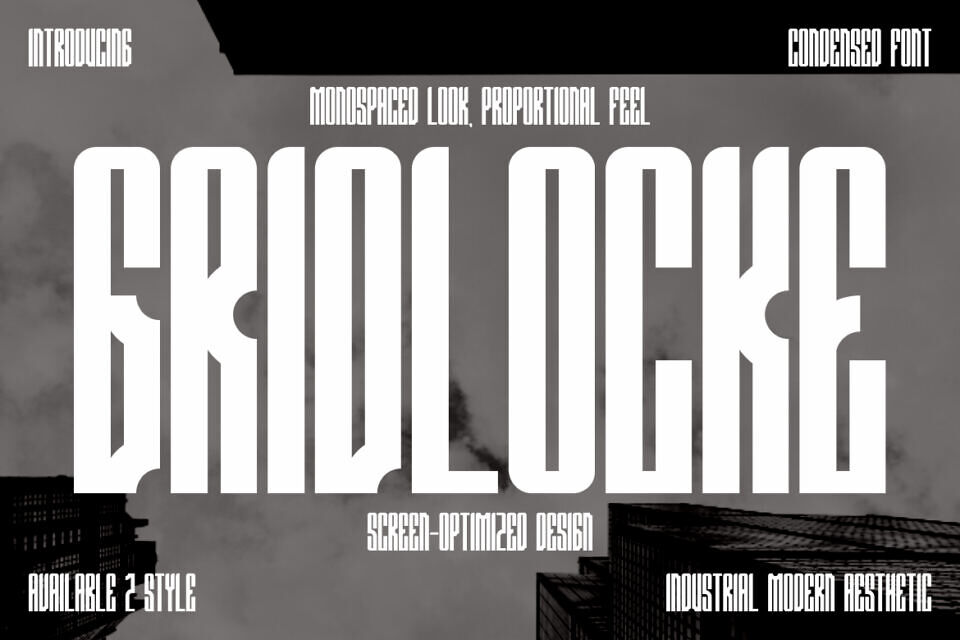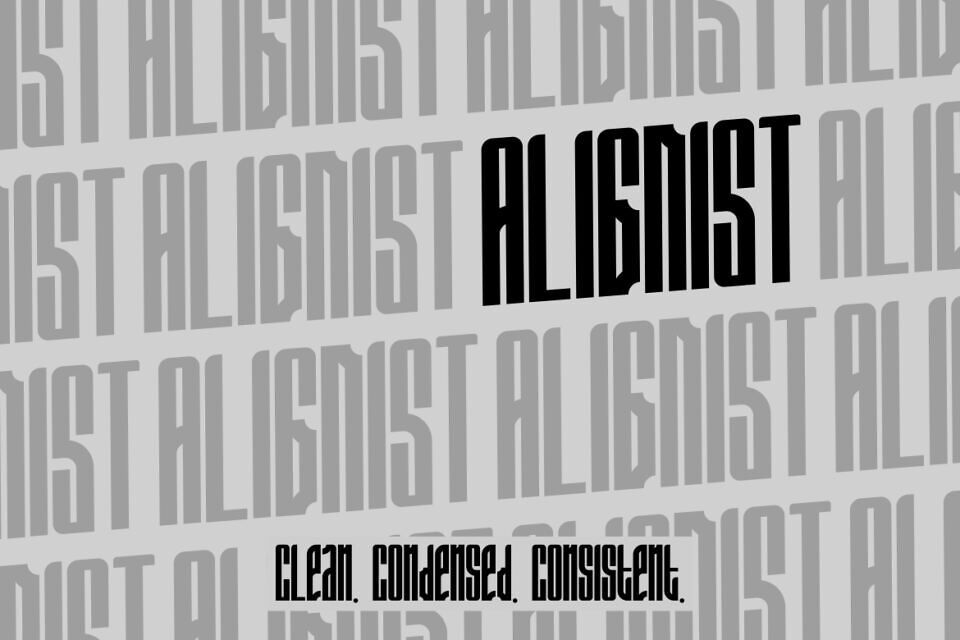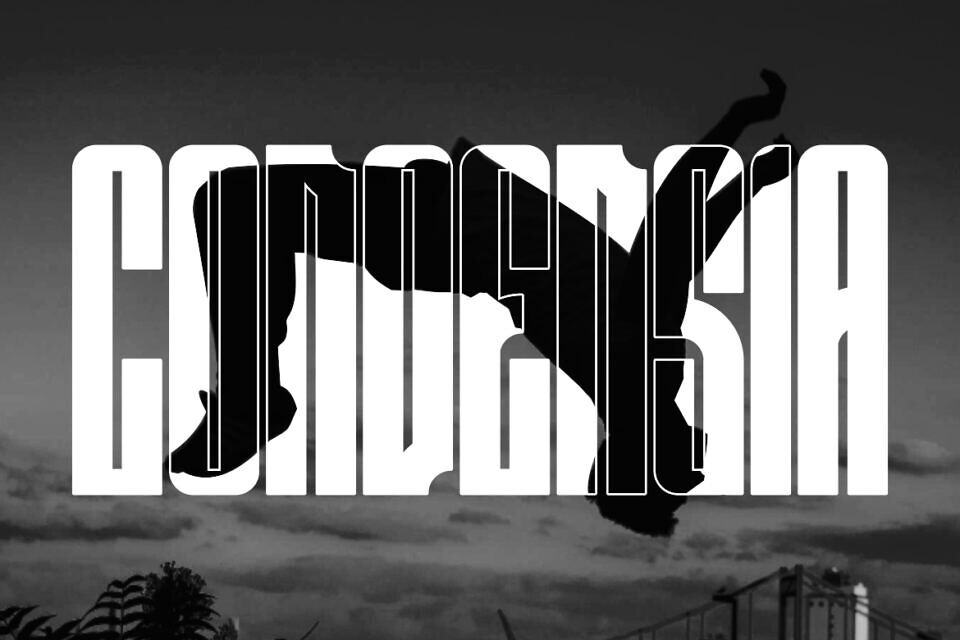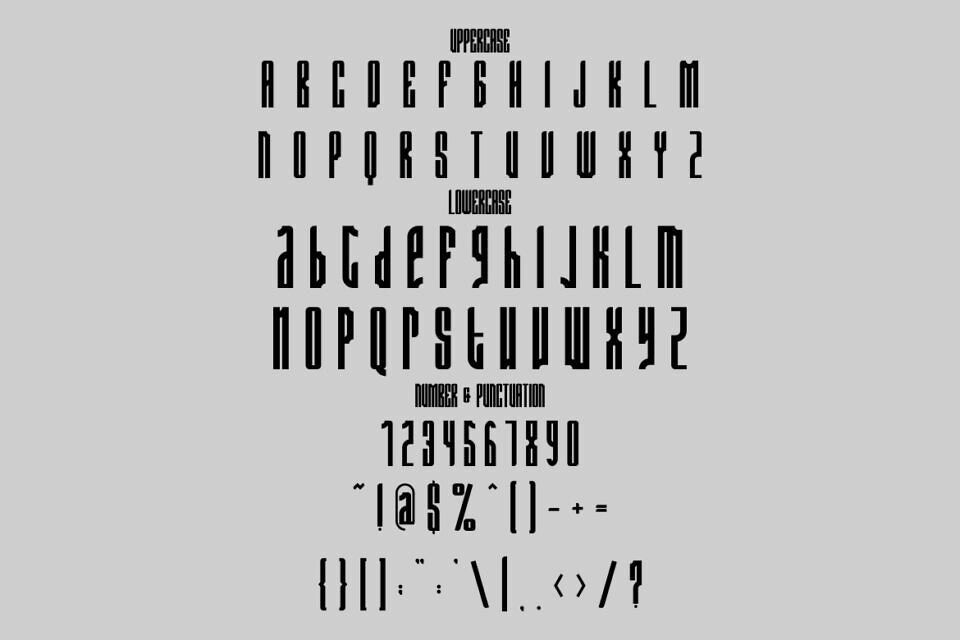
Grid Locke Font
Grid Locke Condensed Font is a bold display typeface built for impact and modern clarity. Each letter is designed with extreme height and condensed proportions, giving it an industrial yet elegant appearance. The font’s sharp vertical structure delivers a monospaced feel while retaining proportional balance, making it both versatile and striking.
With a sleek design optimized for screens, it commands attention in digital layouts and print media alike. Its geometric rhythm and clean edges ensure legibility without sacrificing style, making it ideal for projects that demand bold statements.